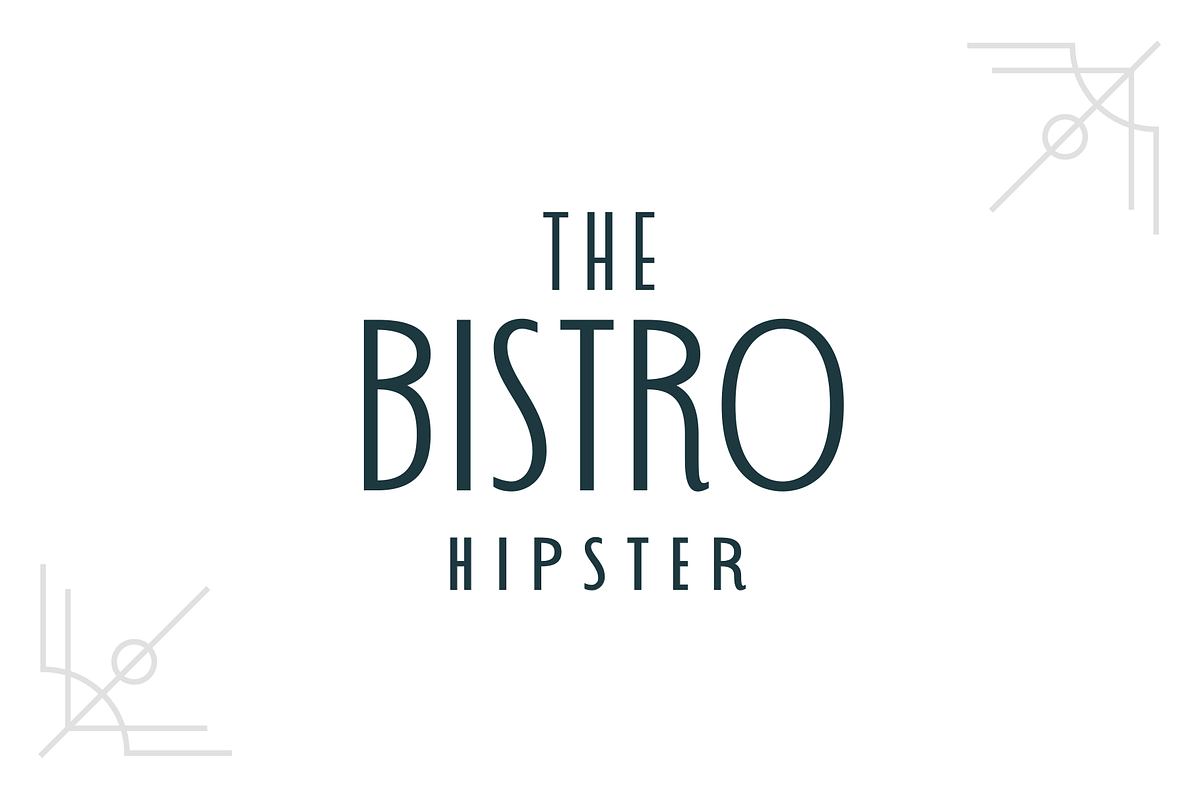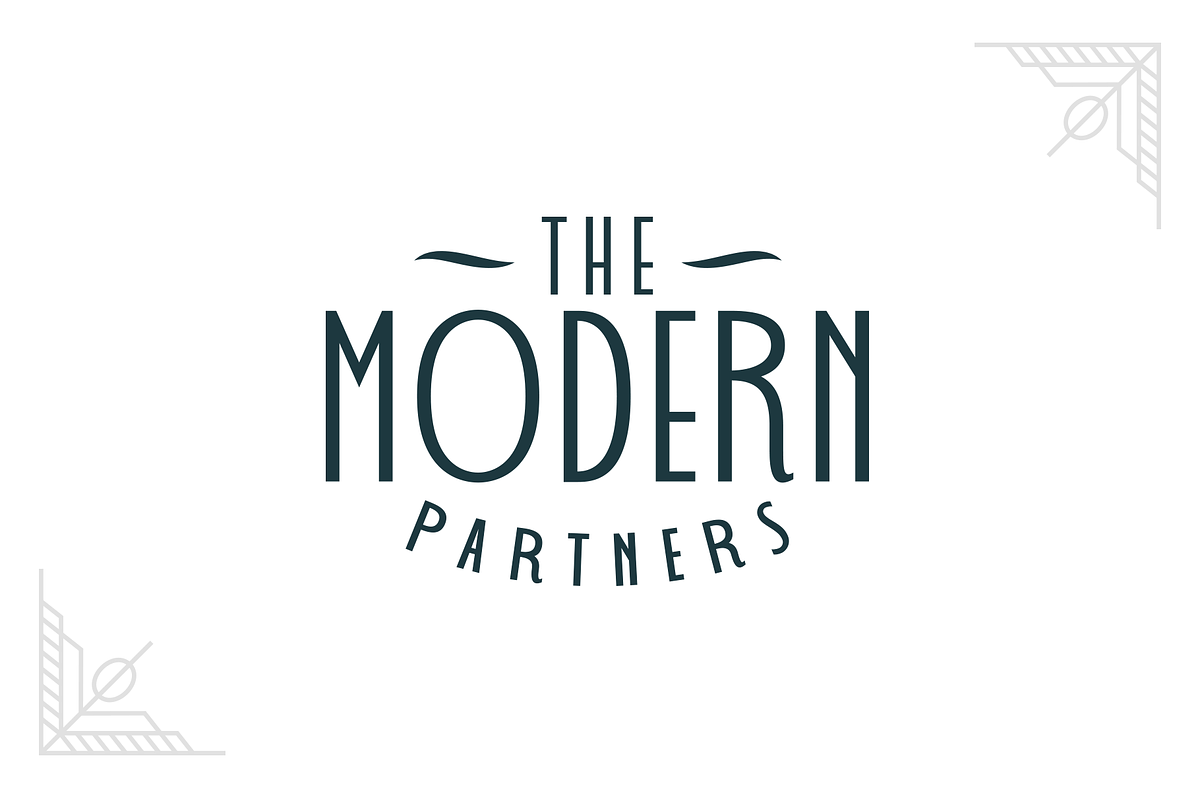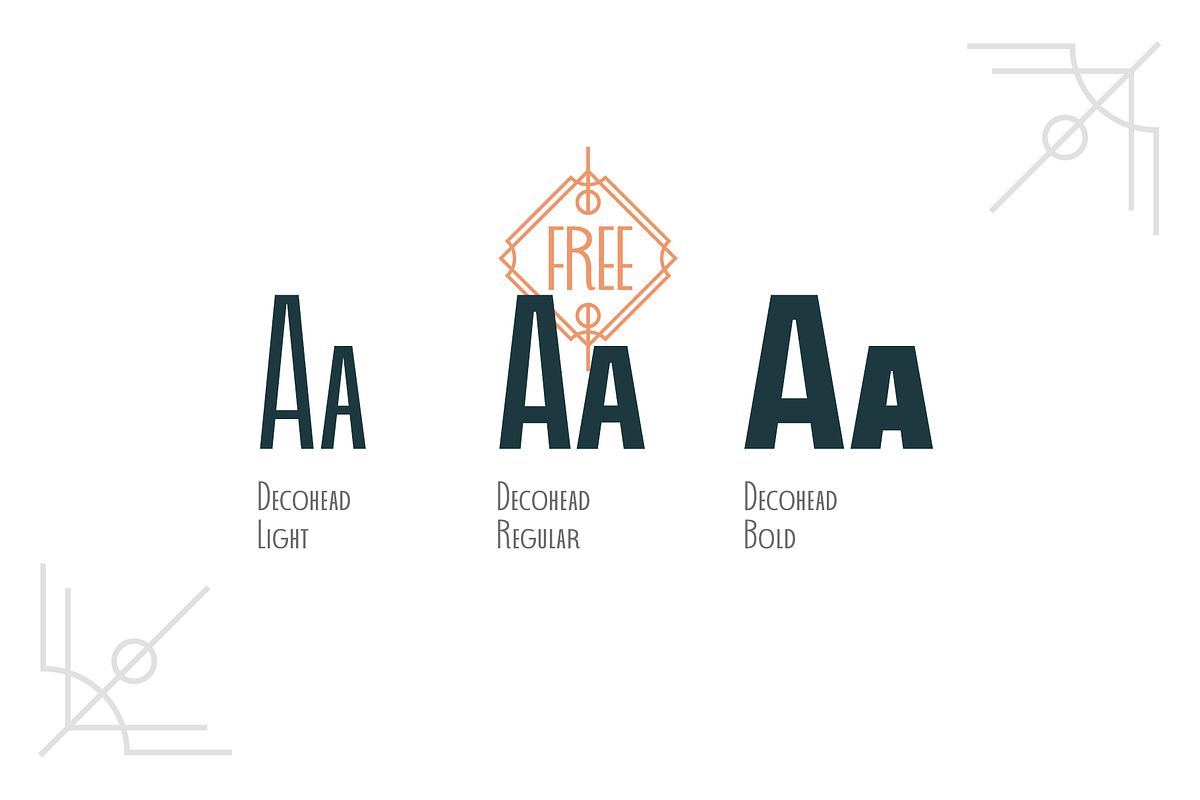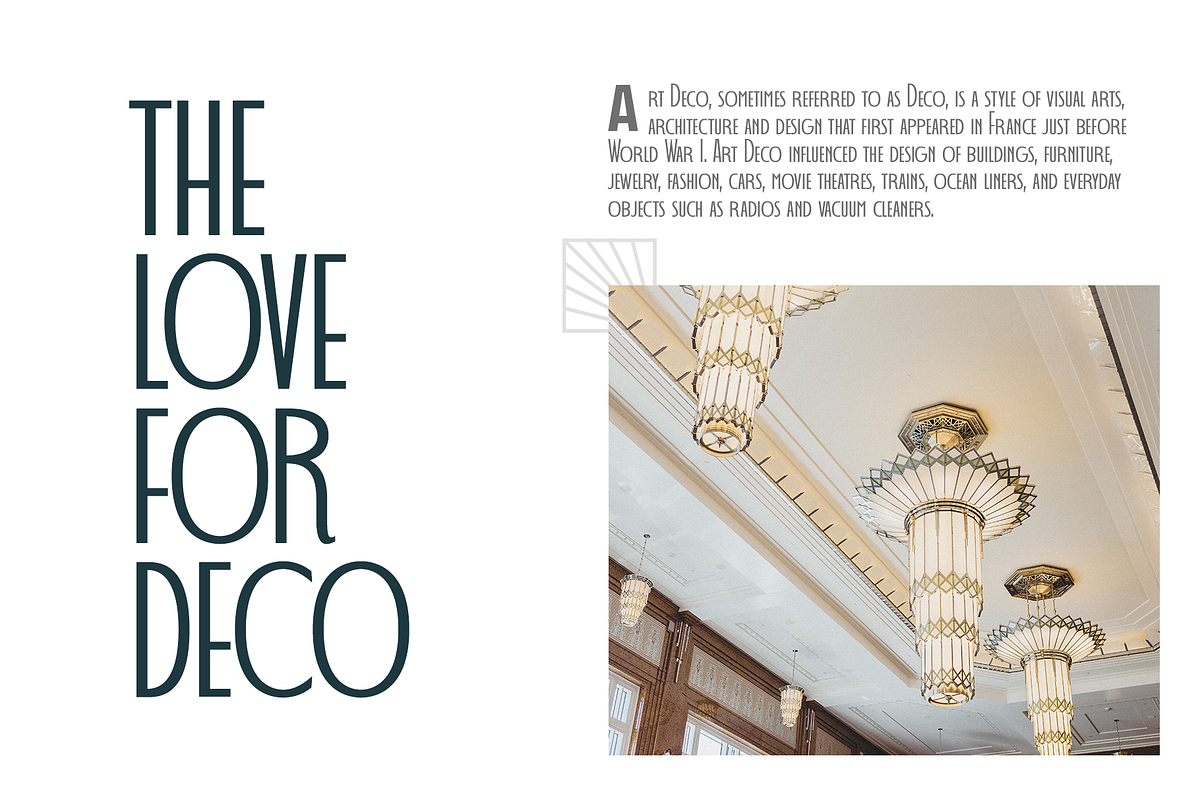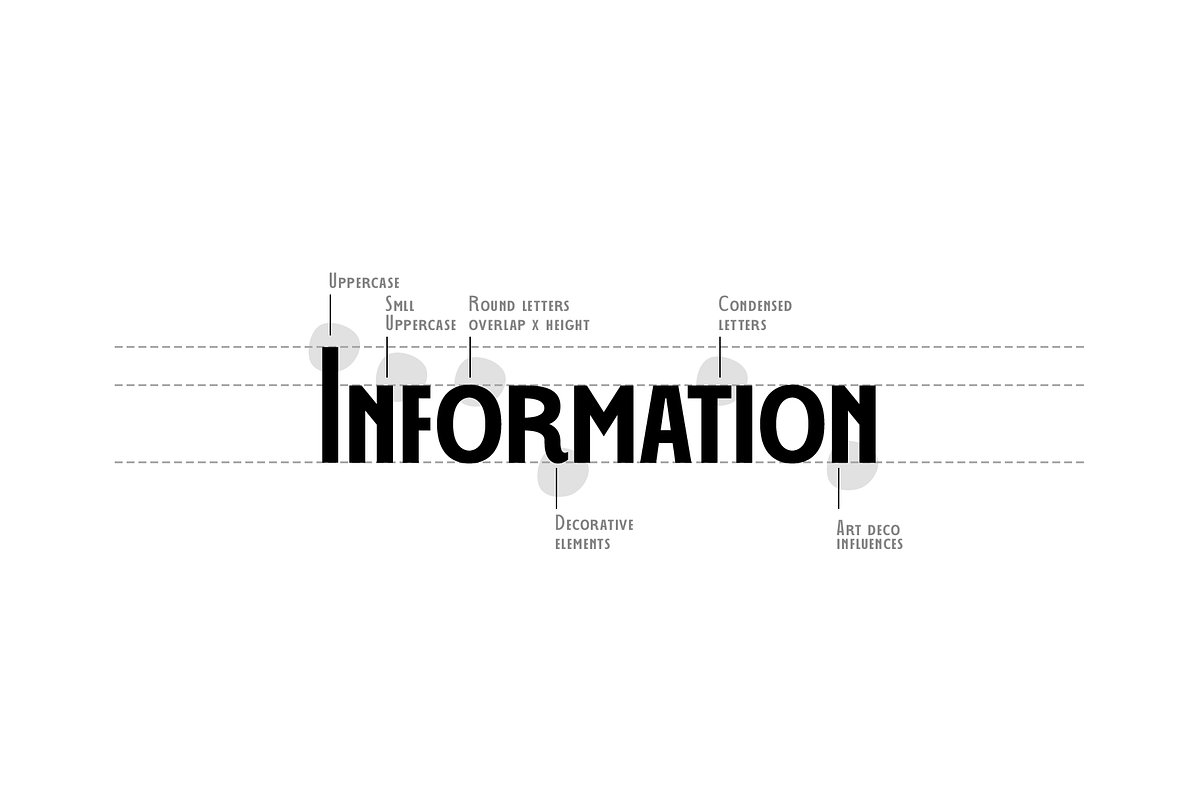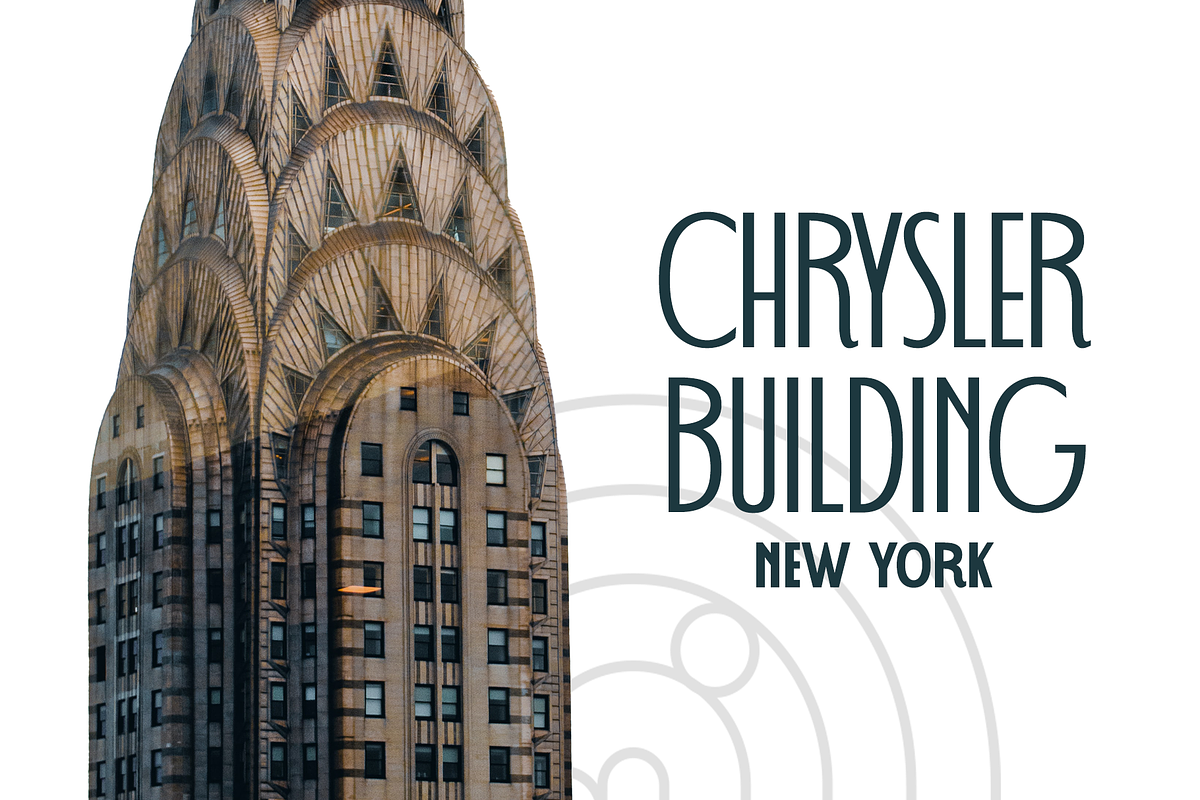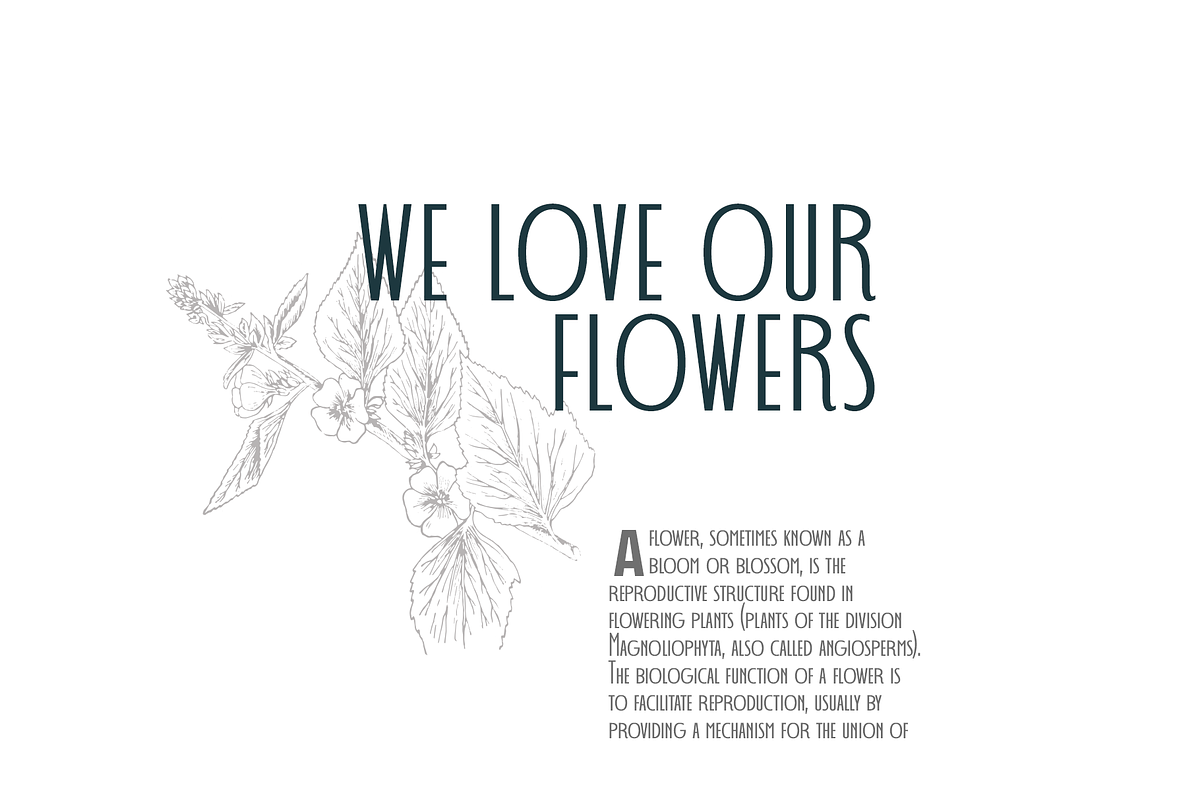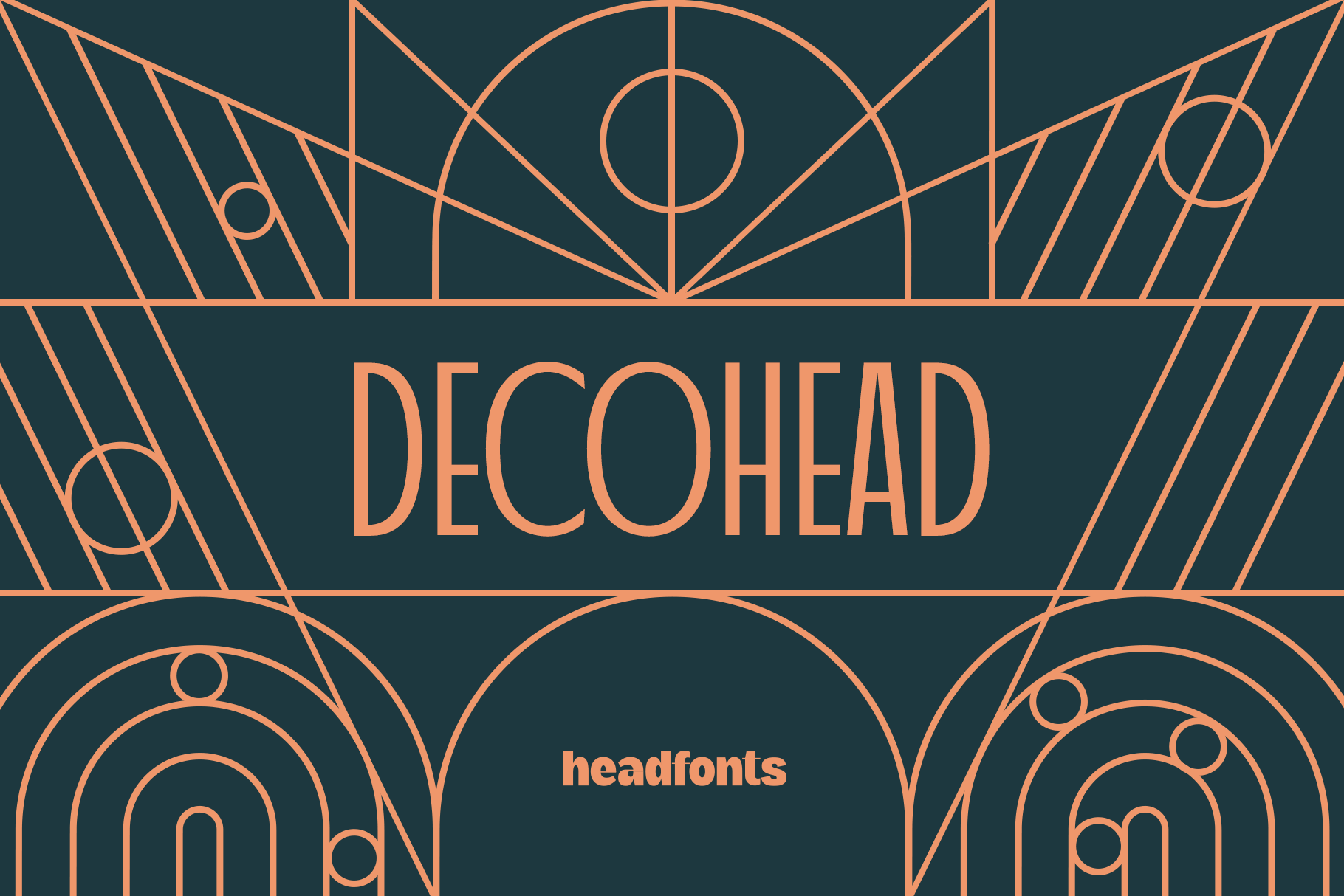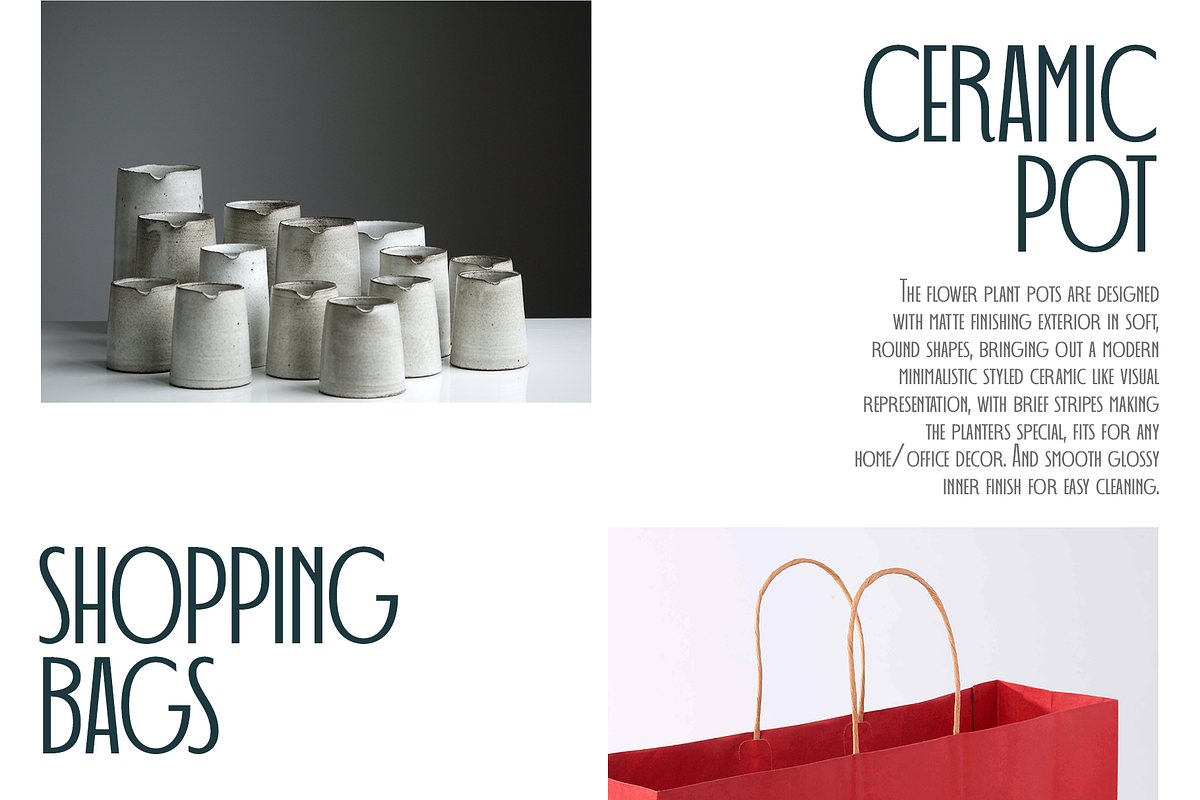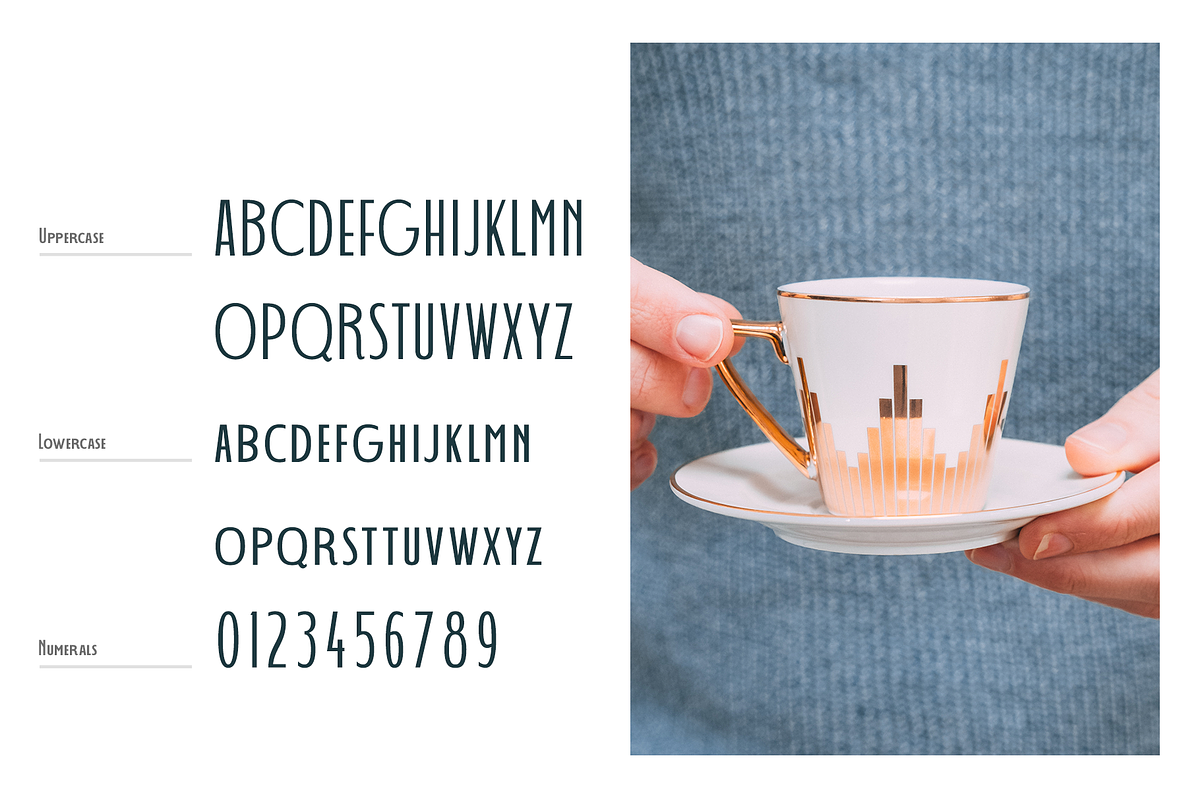
A new holiday update with Decohead Regular as a bonus
Decohead will bring sparkles and joy to your holiday layouts. This typeface is the perfect choice when designing holiday invitations, both Christmas and New Year`s Eve, stationery or alluring holiday cards. Stay classy and glamorous this season with Decohead!
Presenting DECOHEAD, an elegant and warm Art Deco inspired typeface. With its unique and delicate touch this font can add a sophisticated twist to any design. Decohead has a neat appearance that feels modern but at the same time it`s decorative accents it sets itself apart, maintaining a subtle yet exquisite overall look, without being too shabby. Decohead has three weights, uppercase and lower uppercase characters, a number of 63 glyphs per each font and standard Latin script support with numerals. You can use Decohead for almost any design project that requires a glamorous, decorative whisper. From posters, headers, feminine logos to wedding invitations but it can also be used for small articles and occasional texts. Get Decohead today and be creative!
- DECOHEAD Light
- DECOHEAD Bold
- Upper and lower uppercase font